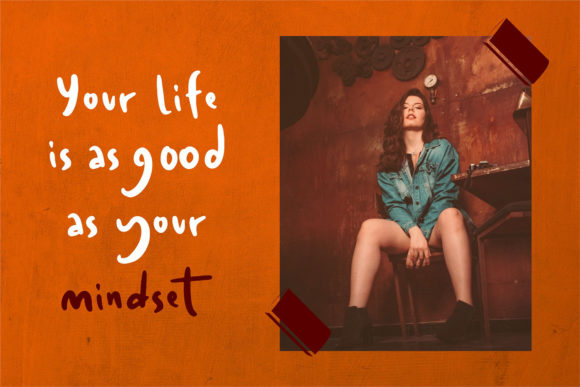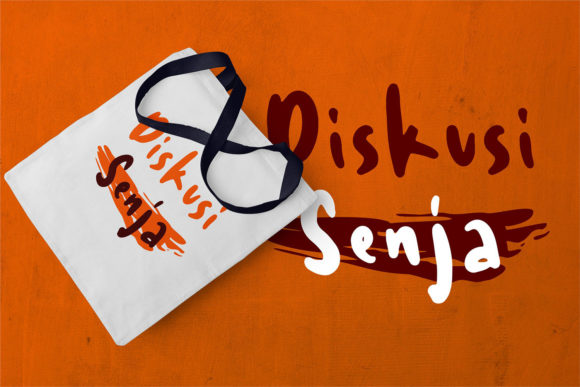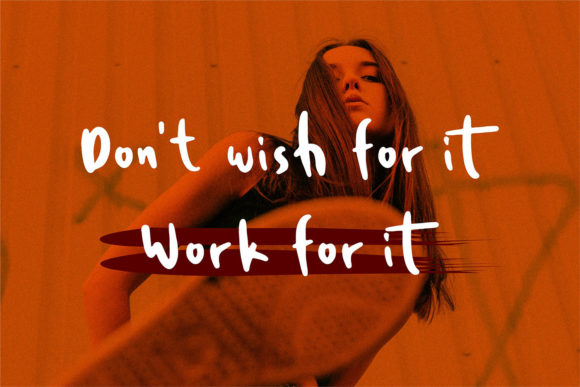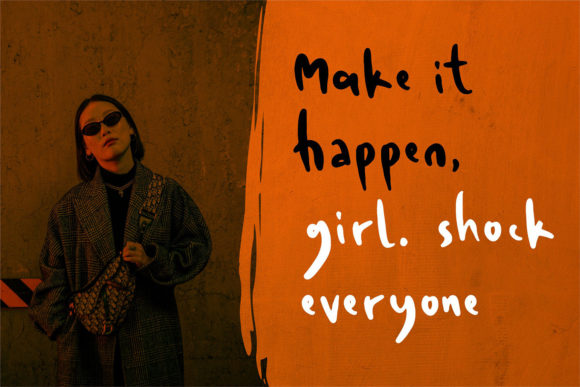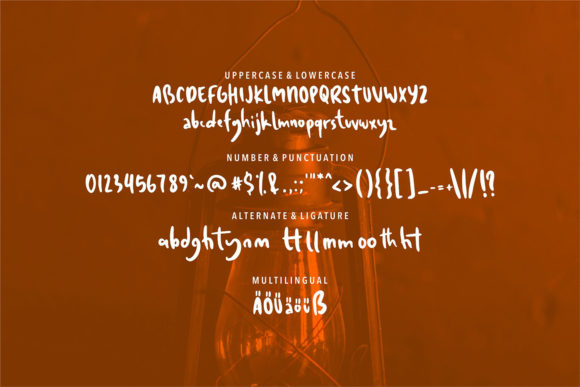
Introduction to Lembayung Font Font
Fonts play a crucial role in design, and the Lembayung Font font is a typeface that brings both character and versatility to any project. Whether you’re working on a branding project, a website, or a print design, the Lembayung Font font offers a unique style that can elevate your work.
Lembayung is a stylish free-flowing handwritten font perfect for greeting and thank you cards, branding materials, business cards, quotes, posters, and more.
Add it to your designs, and it will turn any creative idea into a true piece of art .
Key Features of Lembayung Font Font
Why Choose Lembayung Font Font?
The Lembayung Font font is more than just a typeface – it’s a design tool that helps you communicate your message with style and clarity. Its unique character set and versatile design make it suitable for a wide range of applications, from elegant invitations to bold headlines.
With its carefully crafted letterforms and balanced proportions, the Lembayung Font font ensures readability and visual appeal across all mediums.
What makes Lembayung Font font special?
The Lembayung Font font stands out with its unique design, exceptional readability, and versatility across various design applications.